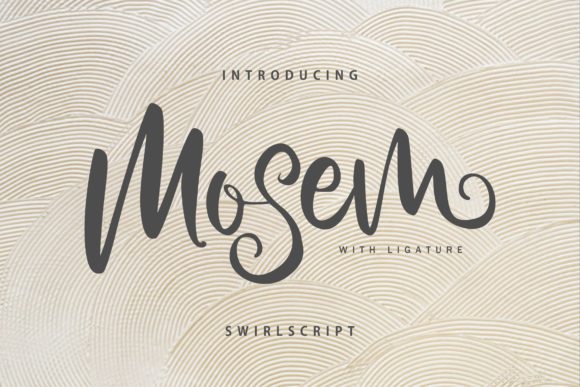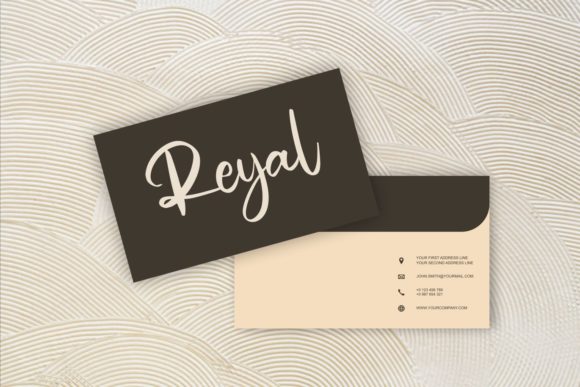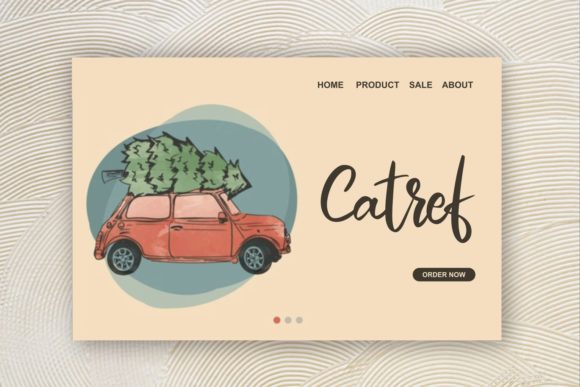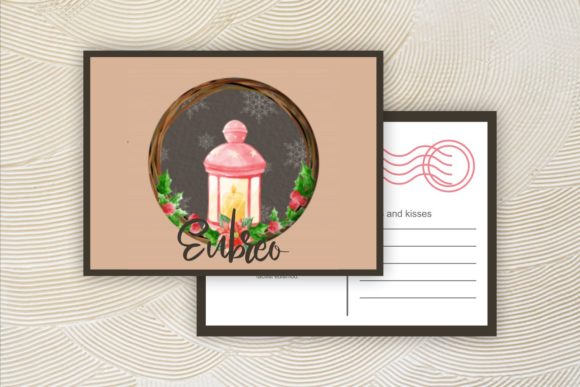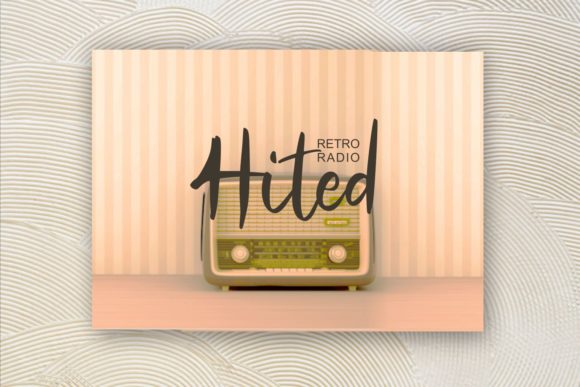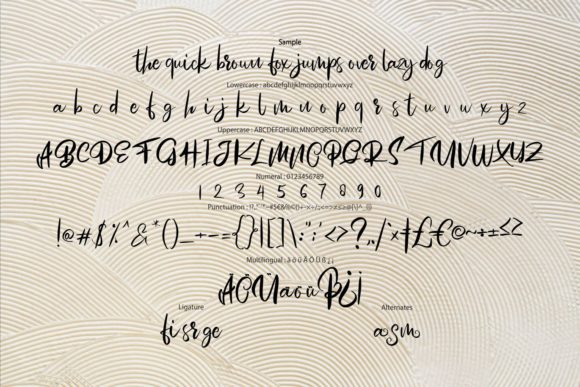
Mosem Font
About Mosem Font
Mosem is a gorgeous script featuring a unique calligraphic style. It will turn any design idea into a true standout!
The alternative characters were divided into several Open Type features such as Stylistic Sets, Stylistic Alternates, Contextual Alternate, swashes, and ligature.